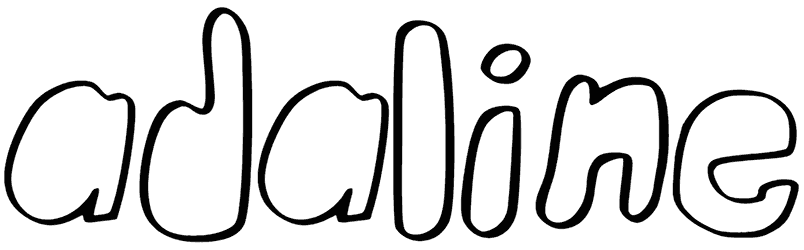
Adaline Font
Hey, a hallow cartoon font with a playful and cozy design is trying to unveil itself for anyone who wants to make cartoon headers, animation covers, toy packaging, or anything else.
With this Adaline font’s childish and animated lines, you would create anything unique to blow your audience’s minds! The absence of uppercase letters and numbers in this doodle font does not hinder its development, so test it and feel masterful.